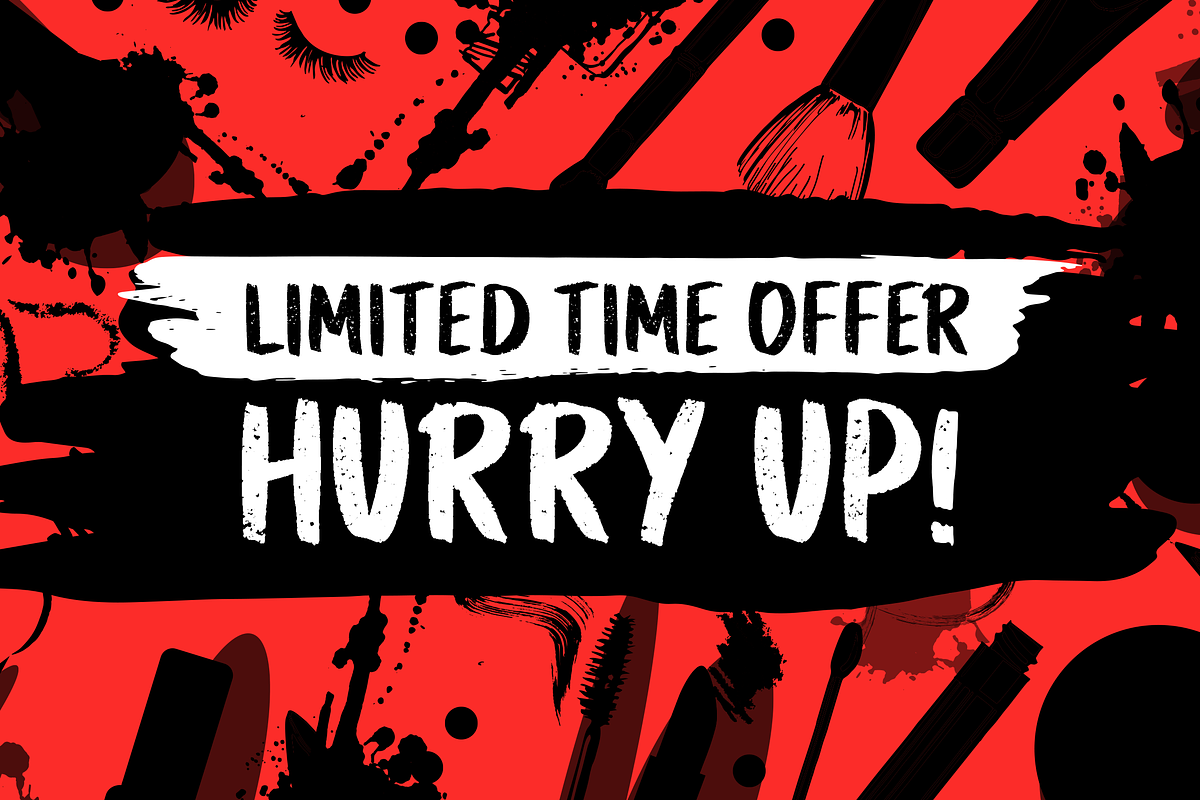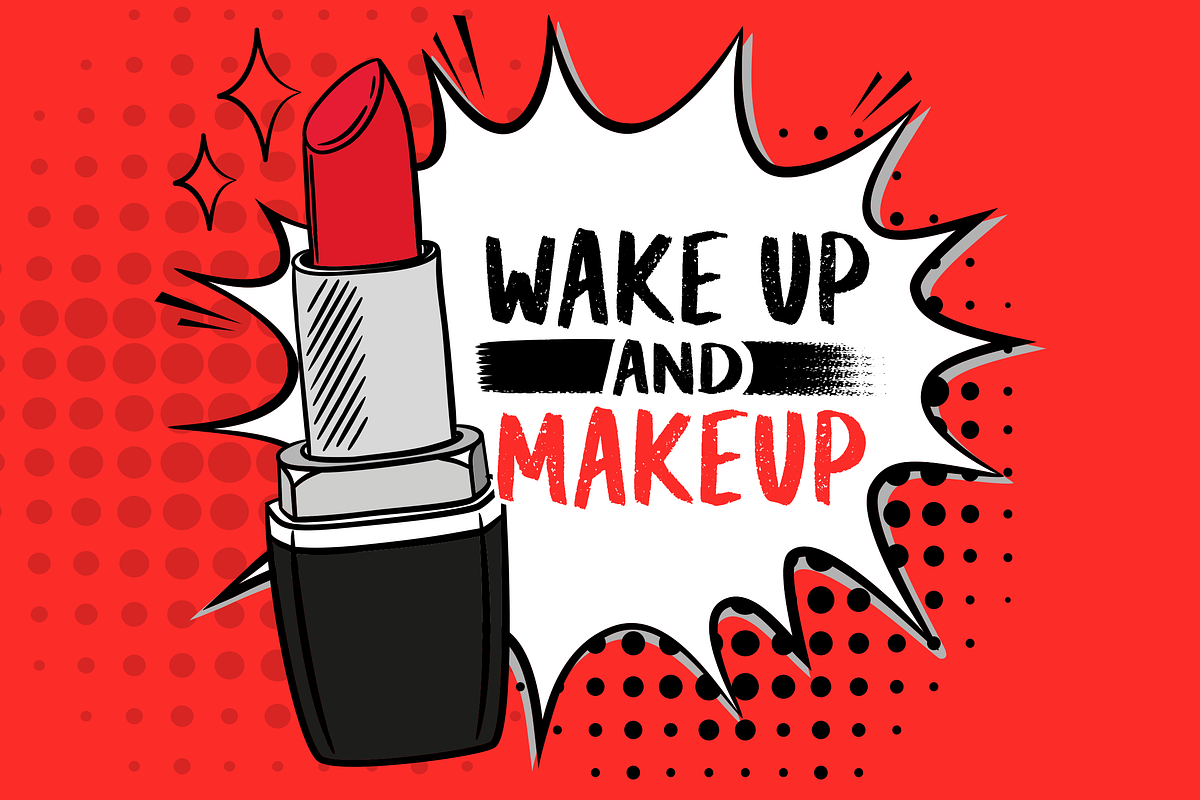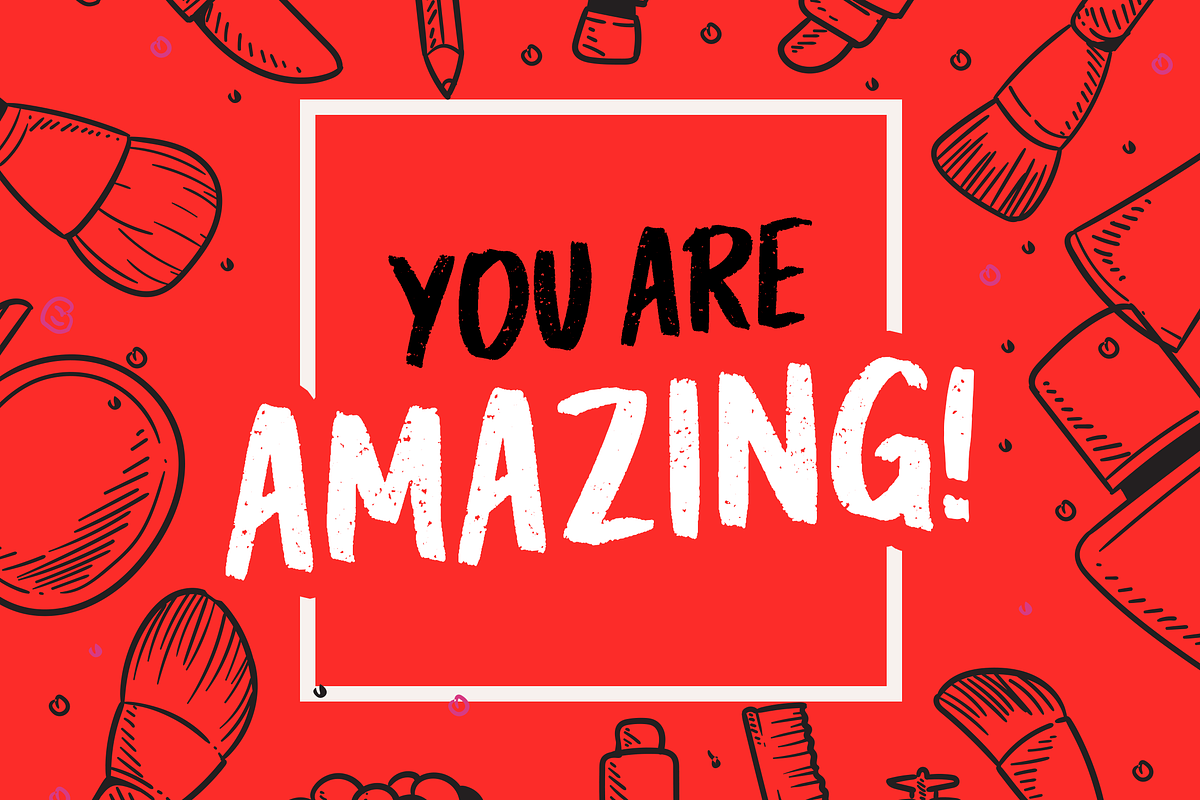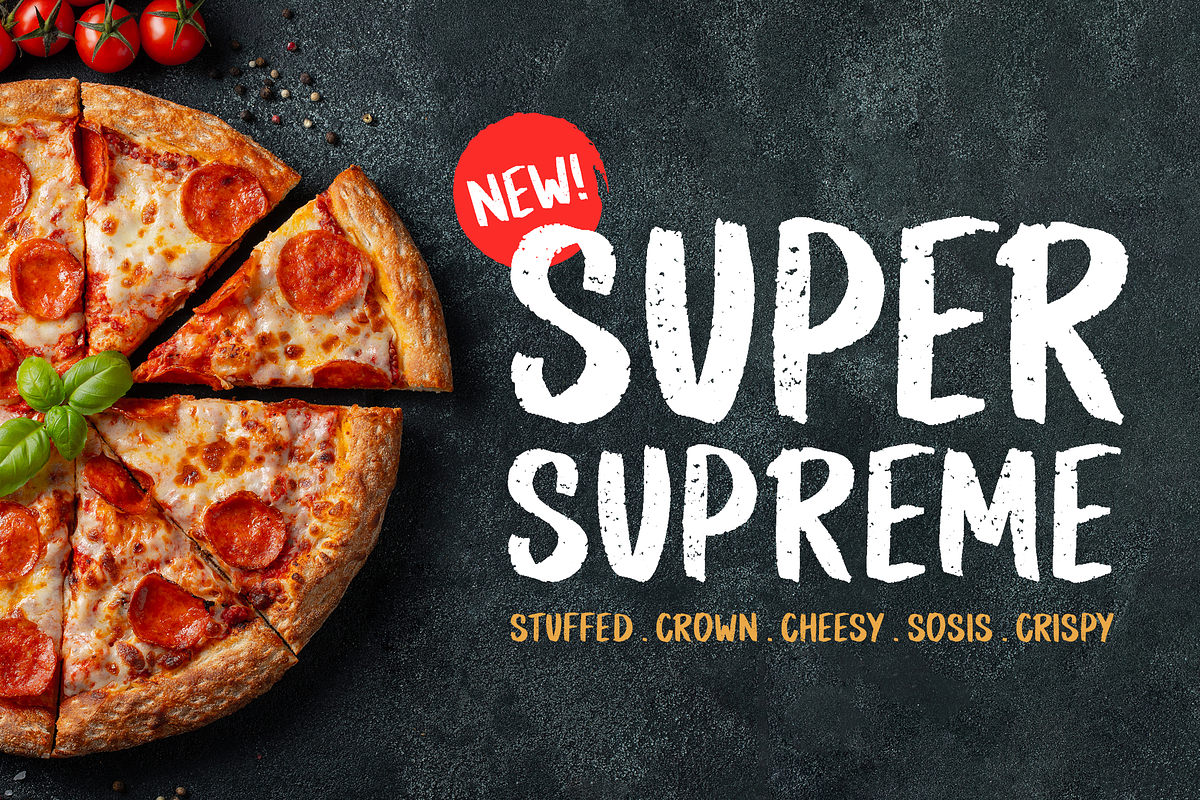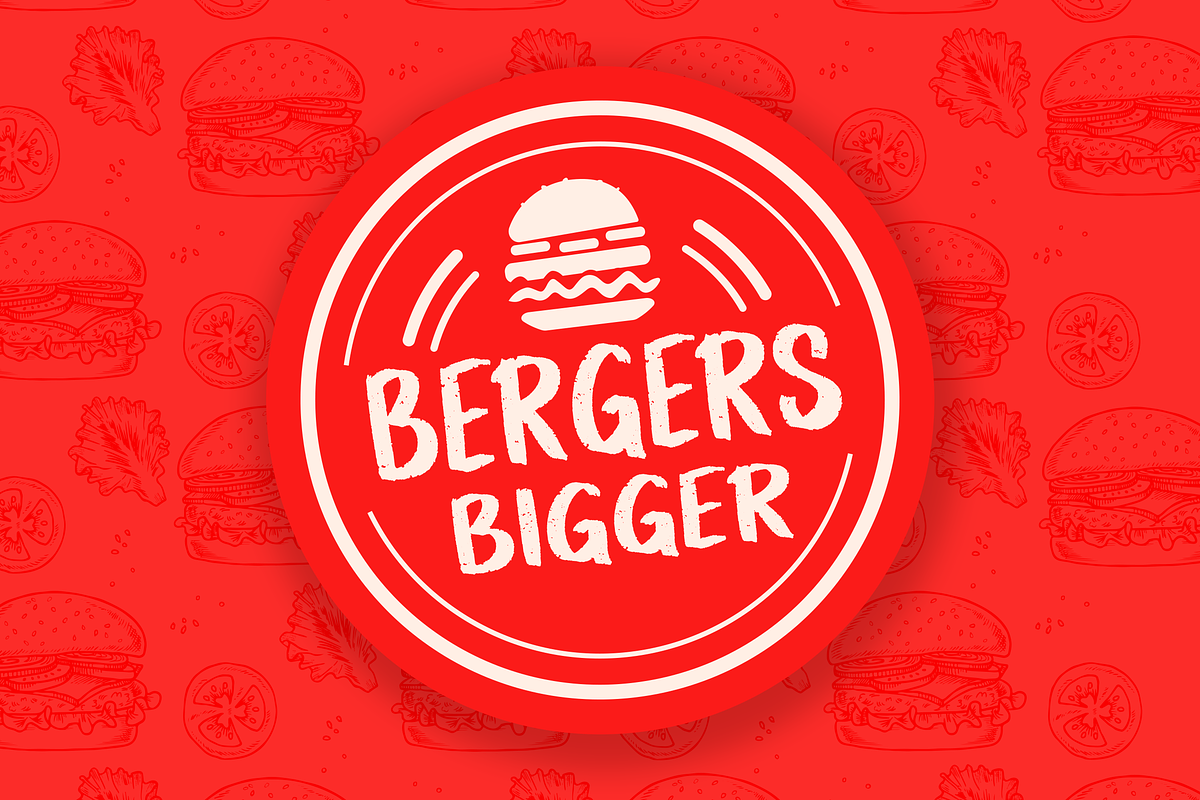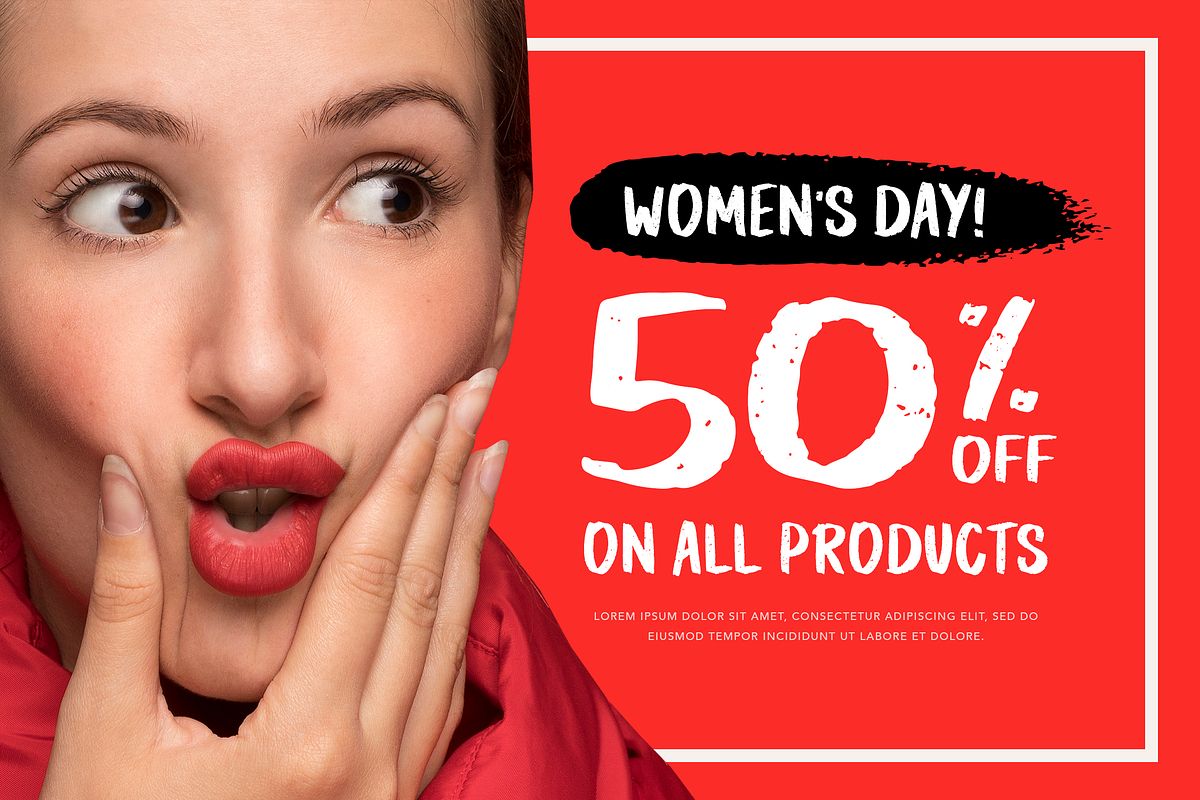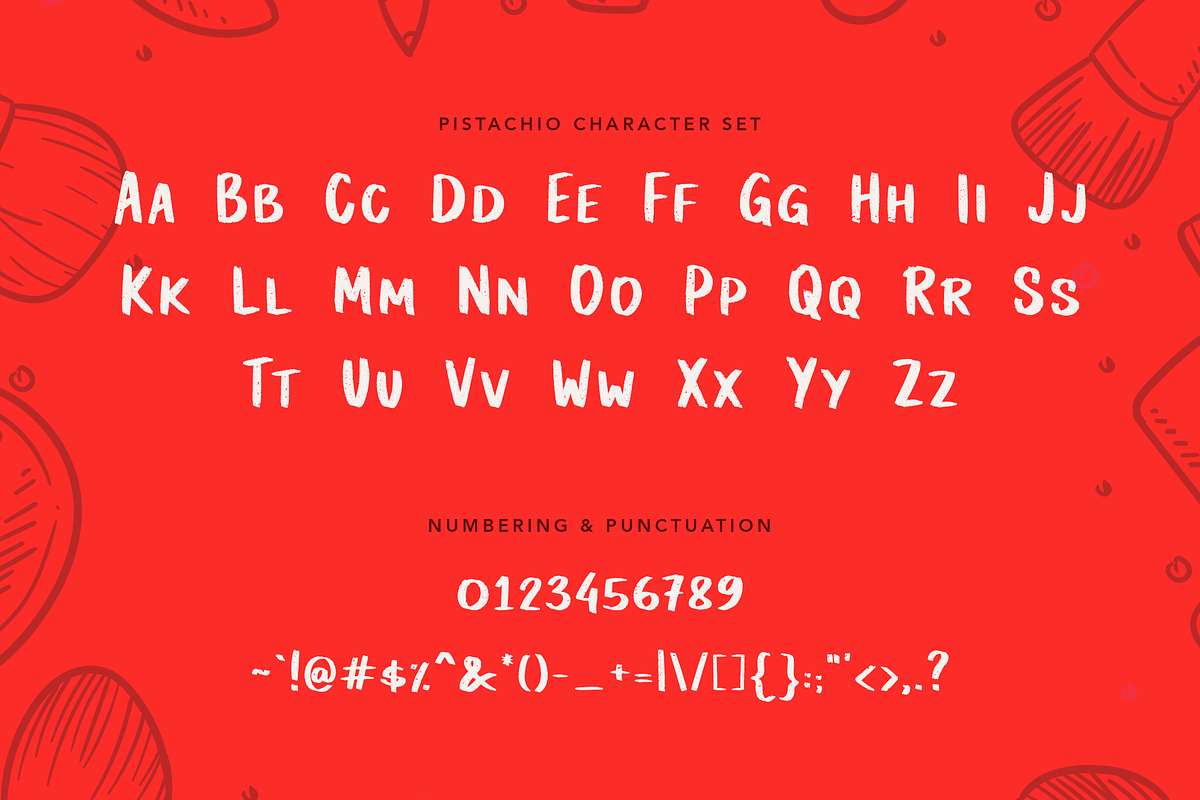
Pistachio Handbrushed Font
Make your creative work to be more cheerful and playful by using Pistachio, a bold hand-brushed font. Just like pistachio that accompany you in every chance of your free time, this sweet and fun font is perfect for modern facial or perfume product, and food theme. It’s also suitable for product packaging, ads campaign, logo, tote bag, coffee, fast food or a stylish text overlay to any background image.
This font is unlimited use for a personal project, especially for fun and semi-formal text. Every stroke of this font will make your text-related design to be more stunning, eye-catching and pleasing to the eyes of your audience.
Pistachio Features:
- Font type with fun, playful and bold character
- All Caps letters